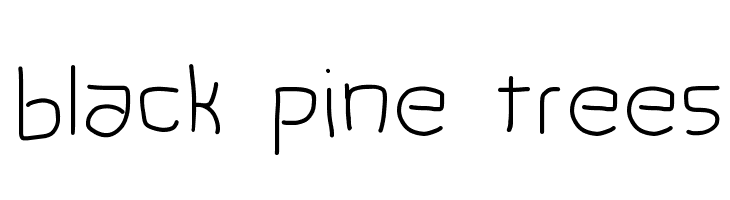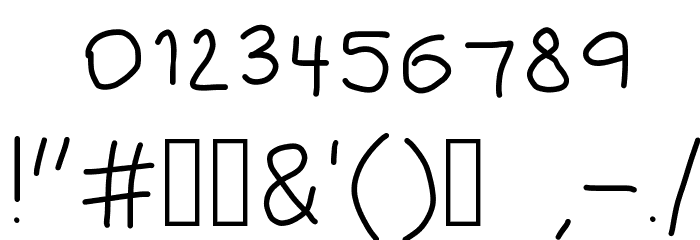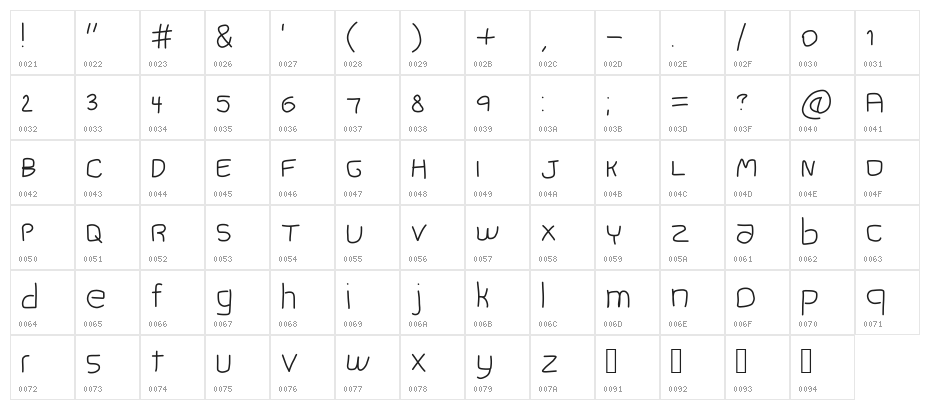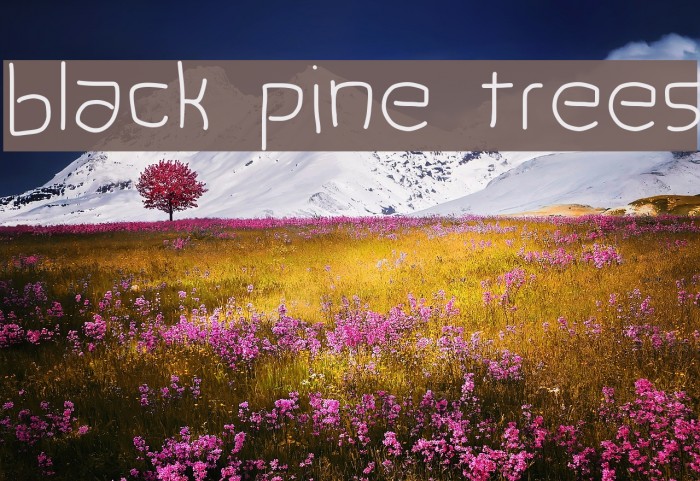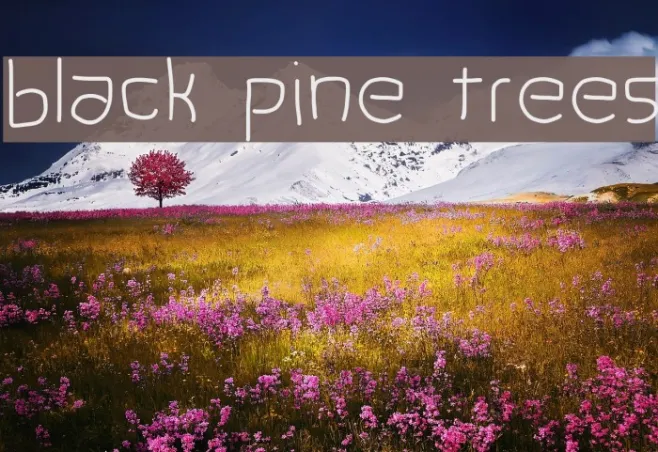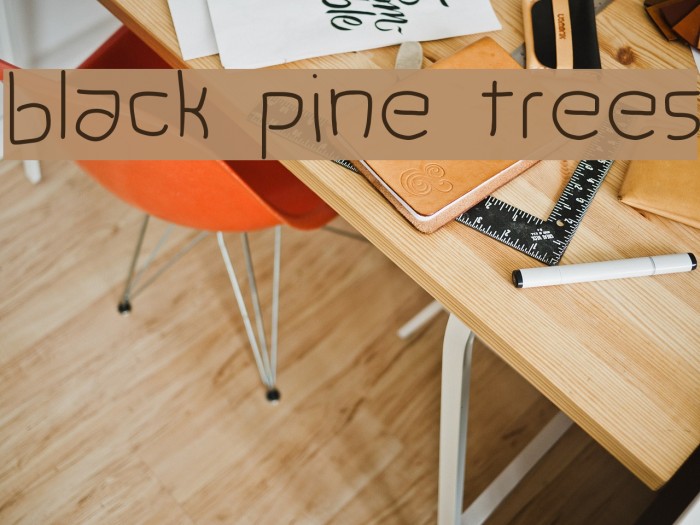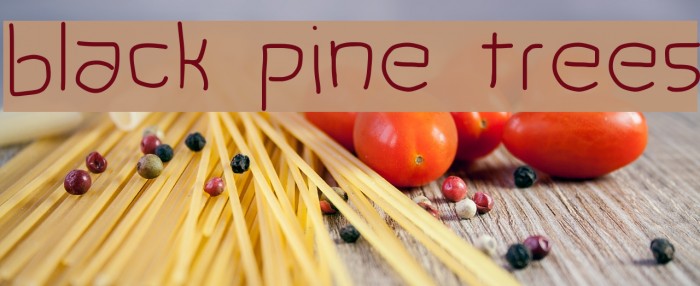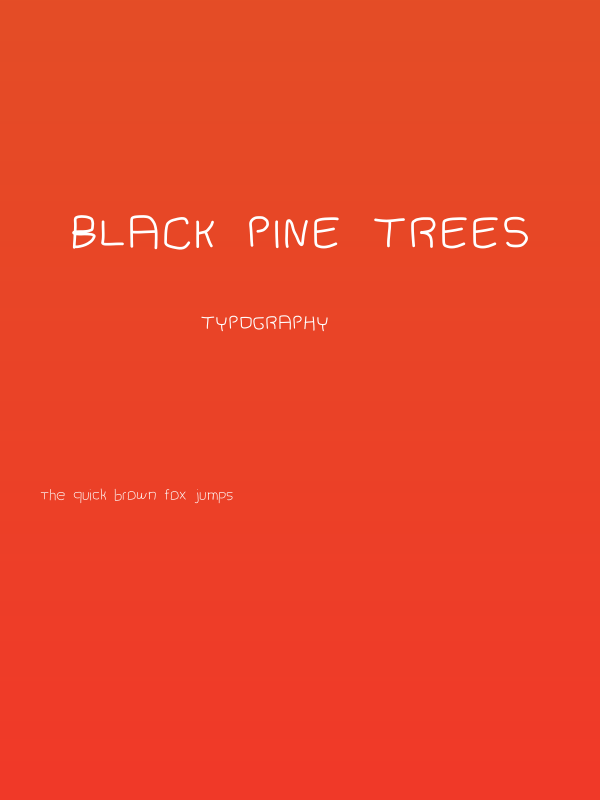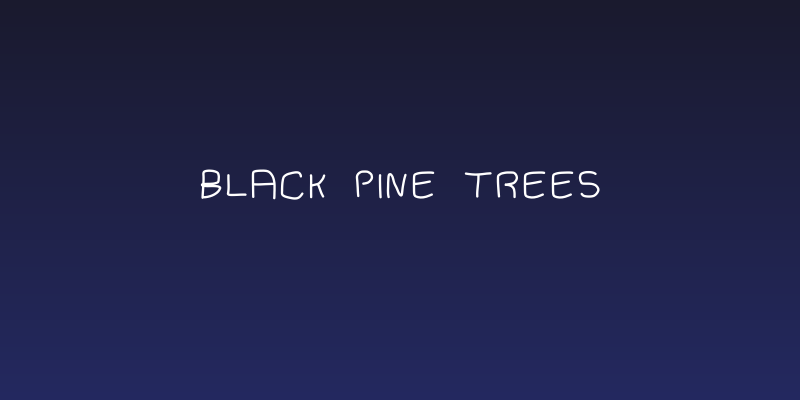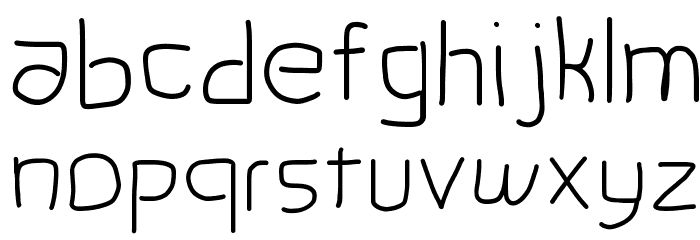
black pine trees Font
black pine trees Description
This font features a playful and casual handwritten style, characterized by its rounded and slightly irregular letterforms. The strokes are consistent in thickness, giving it a uniform appearance while maintaining a friendly and approachable feel. The characters are well-spaced, ensuring readability, and the overall design exudes a sense of informality and creativity. The font includes a full set of uppercase and lowercase letters, numbers, and a variety of special characters, making it versatile for different design needs. Its simplicity and charm make it suitable for projects that require a personal touch.